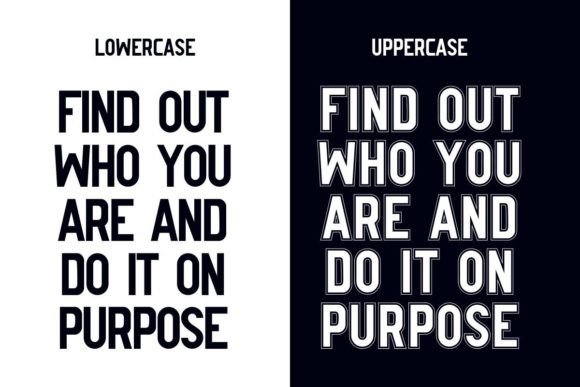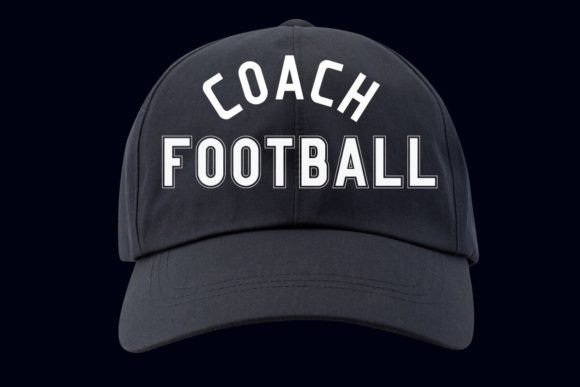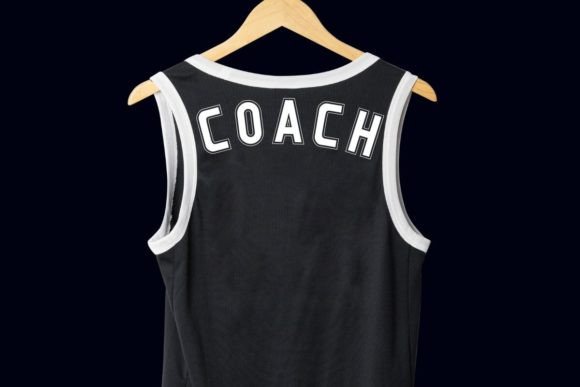
Outline Vintage Font
Outline Vintage is a bold display font with a sporty style. The perfect font for craft needs like t-shirts, hoodies, DIY, stickers, tote bags, decals, clothing, labels, titles, and other creative craft needs.